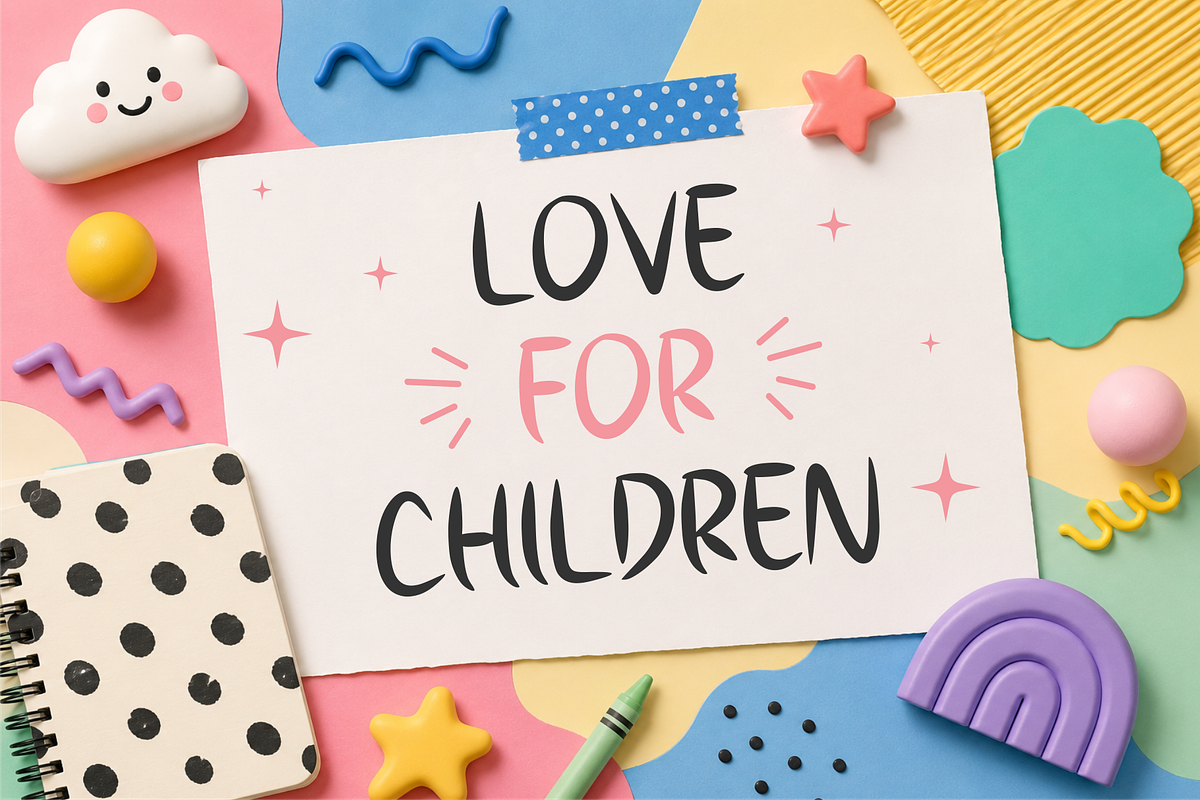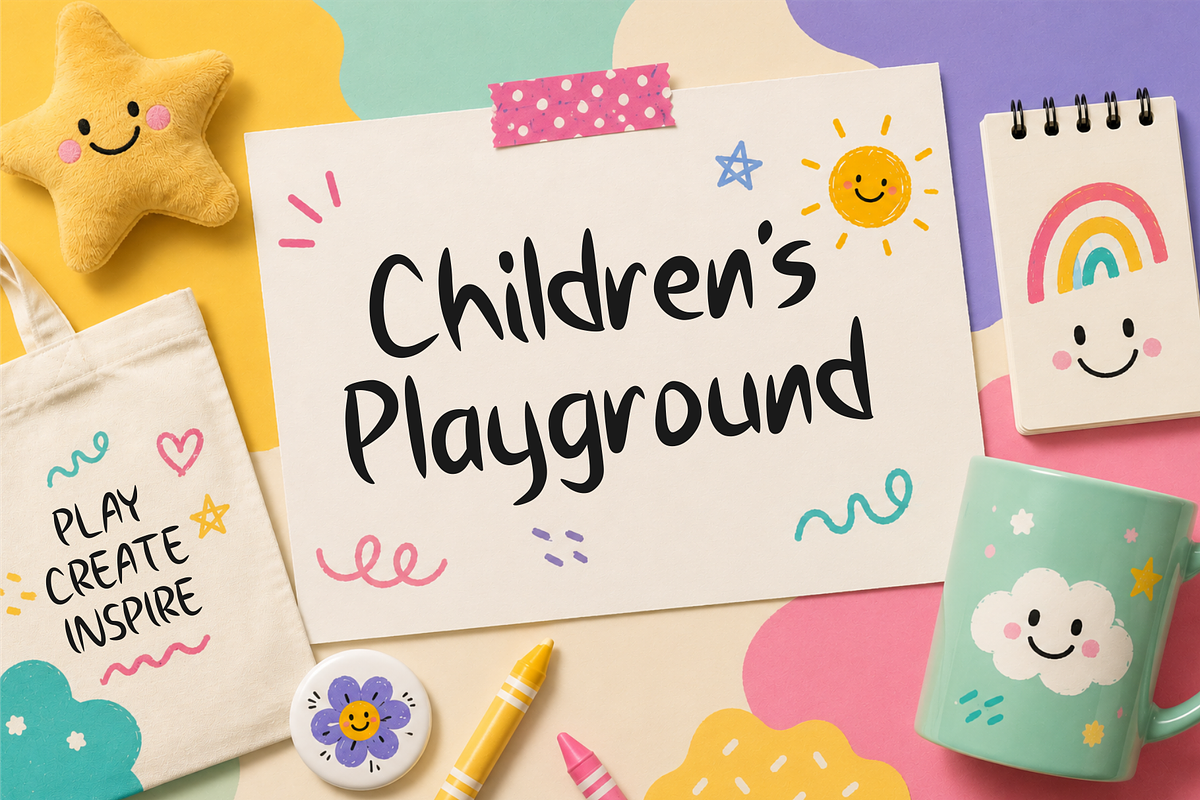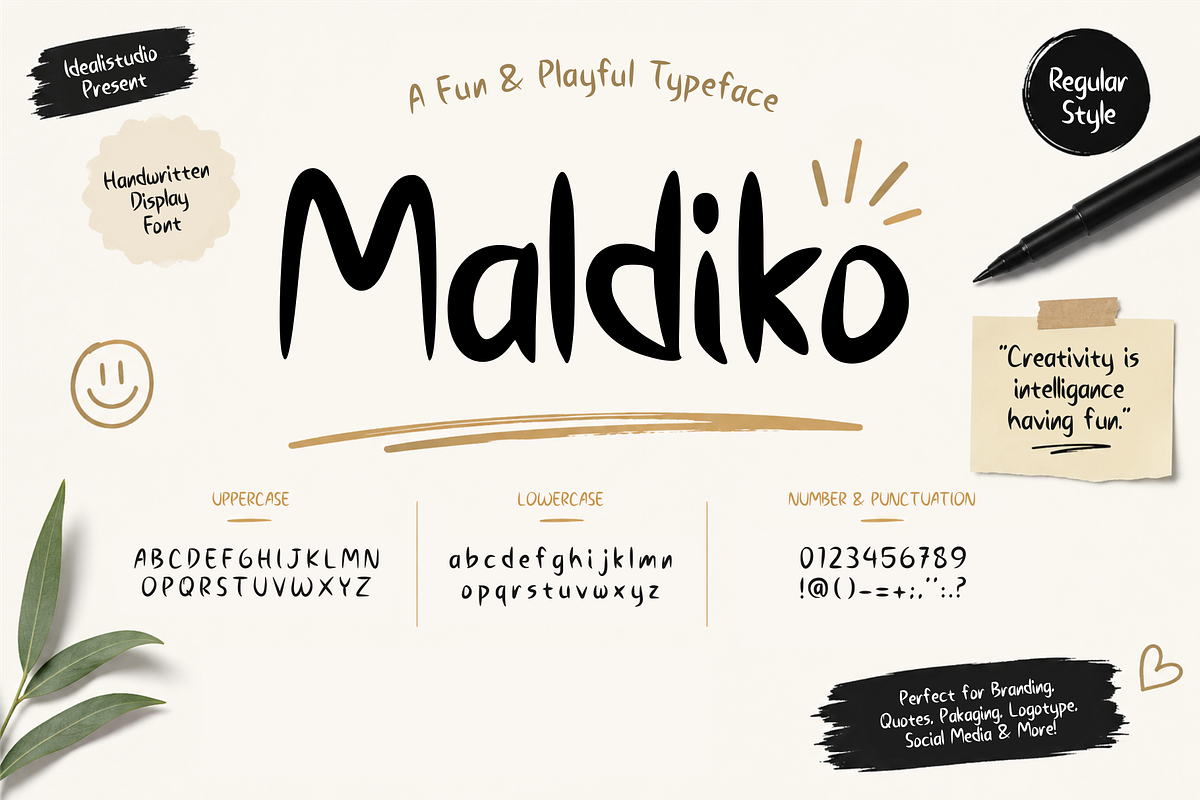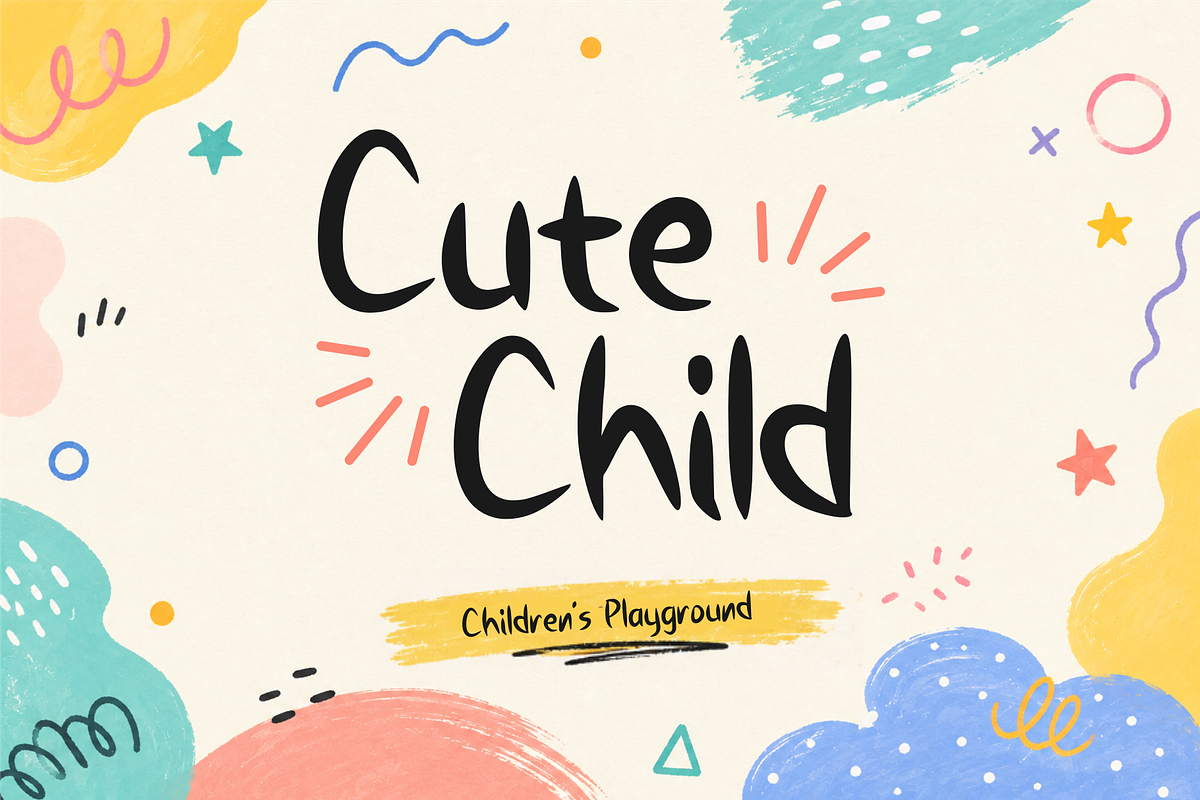
Maldiko – Playful Handwritten
Maldiko – Playful Handwritten is a fun, friendly, and expressive handwritten font featuring bold, organic letterforms with a cheerful and playful personality. Its approachable style makes it especially suitable for children’s schools, classrooms, educational materials, and kids’ learning projects.
Perfect for school posters, classroom signs, worksheets, activity books, children’s storybooks, flashcards, educational games, school events, stickers, certificates, crafts, packaging, and social media content. Maldiko adds a warm, creative, and energetic feel that helps children’s designs look more engaging and memorable.